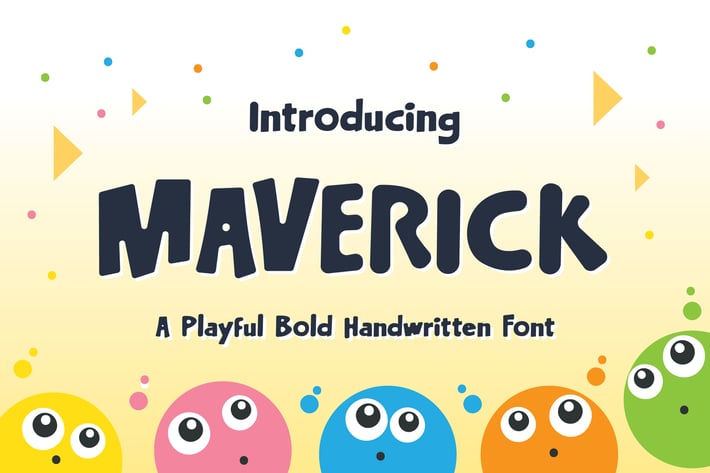
Maverick Typeface - Playful Bold Handwritten Font
Maverick Typeface - A Playful Bold Handwritten Font
So beautiful on invitation like greeting cards, branding materials, business cards, quotes, posters, and more!